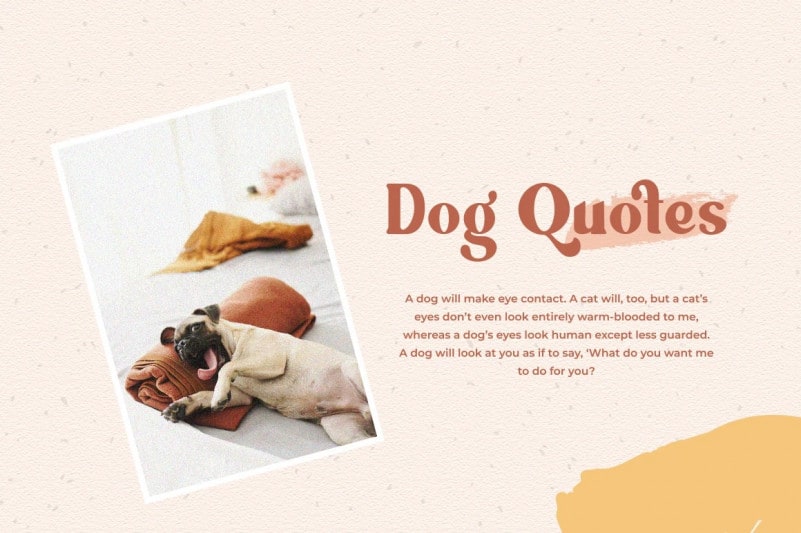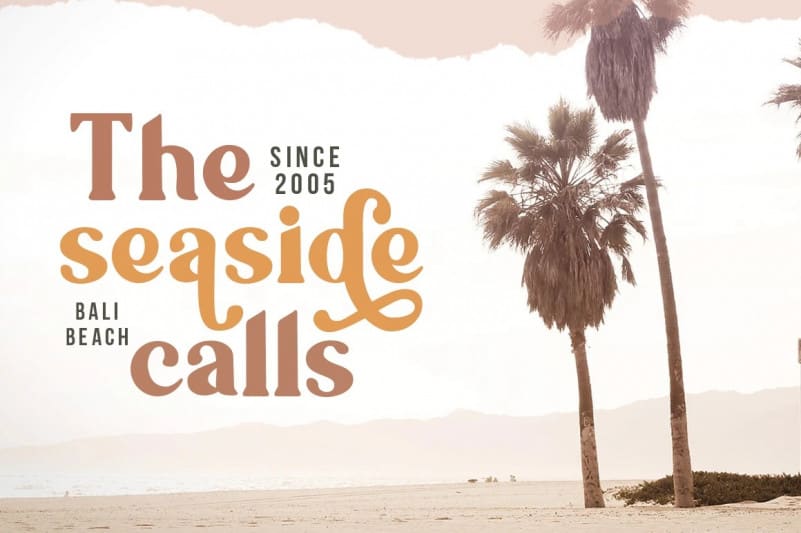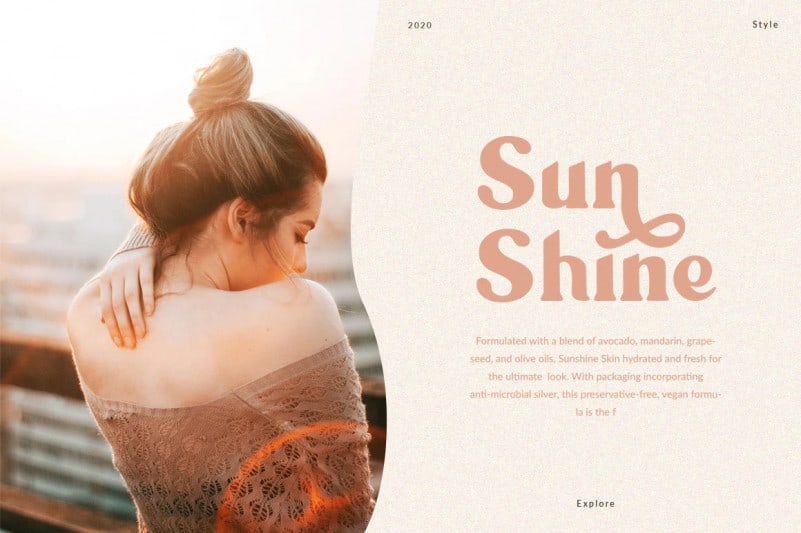
Ragila Serif Font
Introducing Ragila Serif Font, a beautiful serif font with character. Featuring a single weight font that works well for all of your branding and design projects. Fancy Typefaces with tons of alternative characters, multilingual support and unique ligatures.
Ragila Serif Font is very versatile fonts. It easily cooperating together and perfect for creating the traditional style logos, labels, package design, lettering for t-shirts and much others.